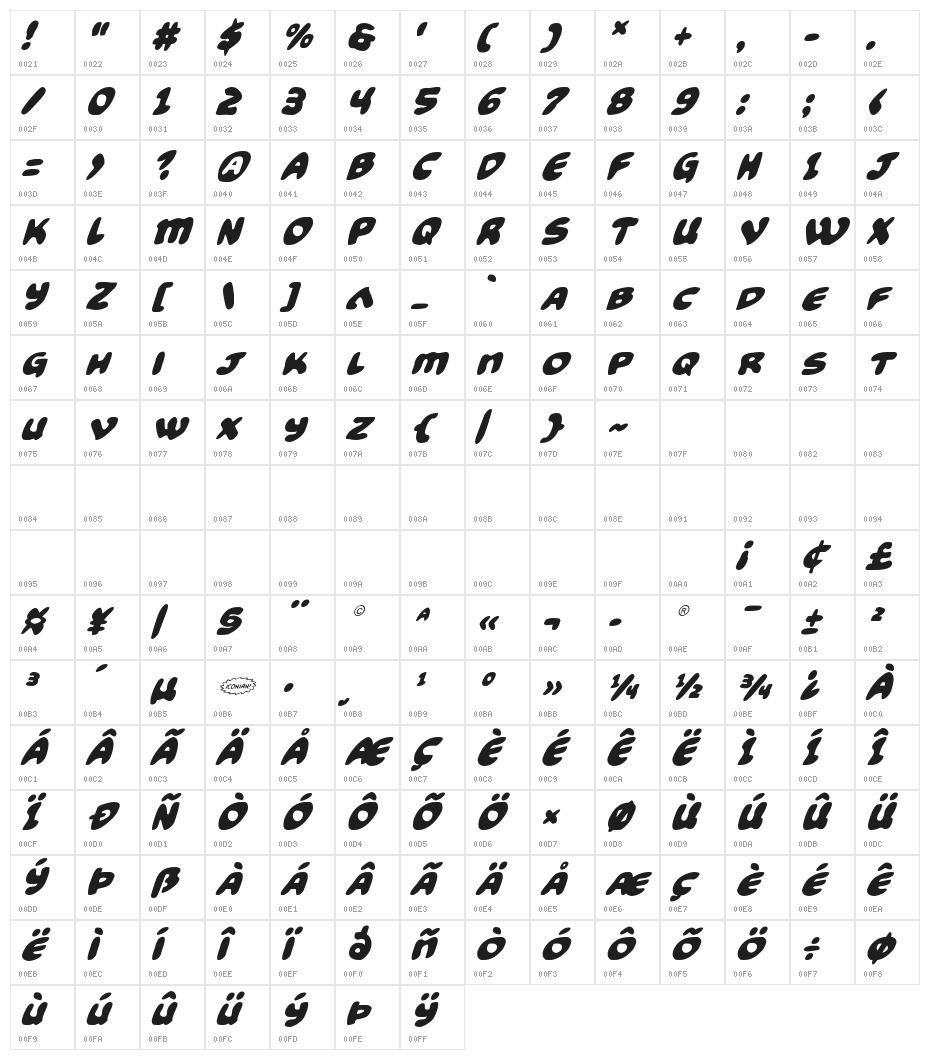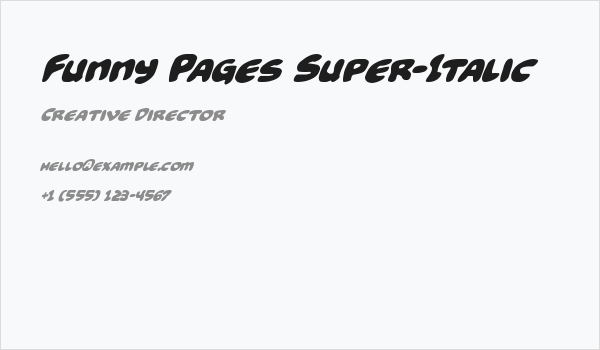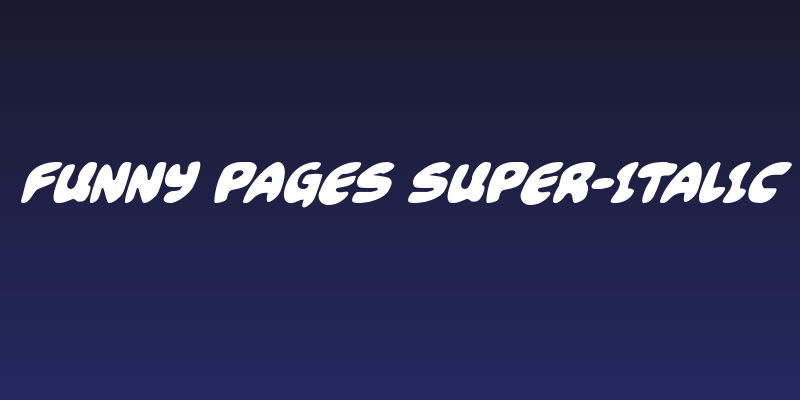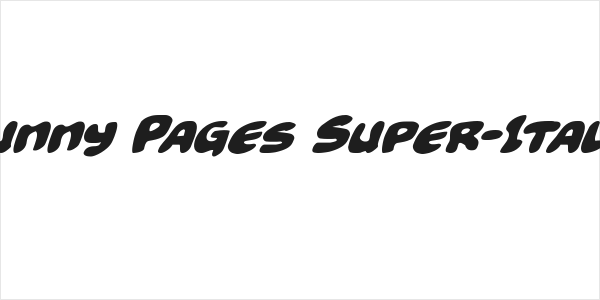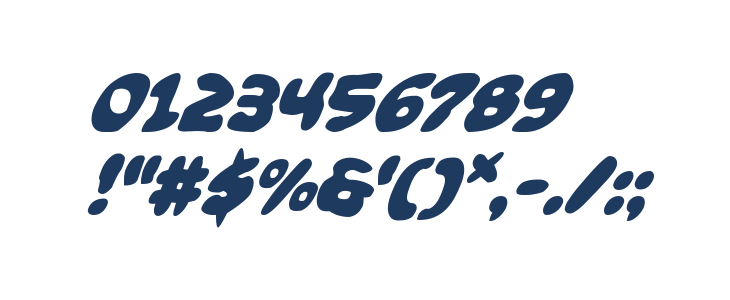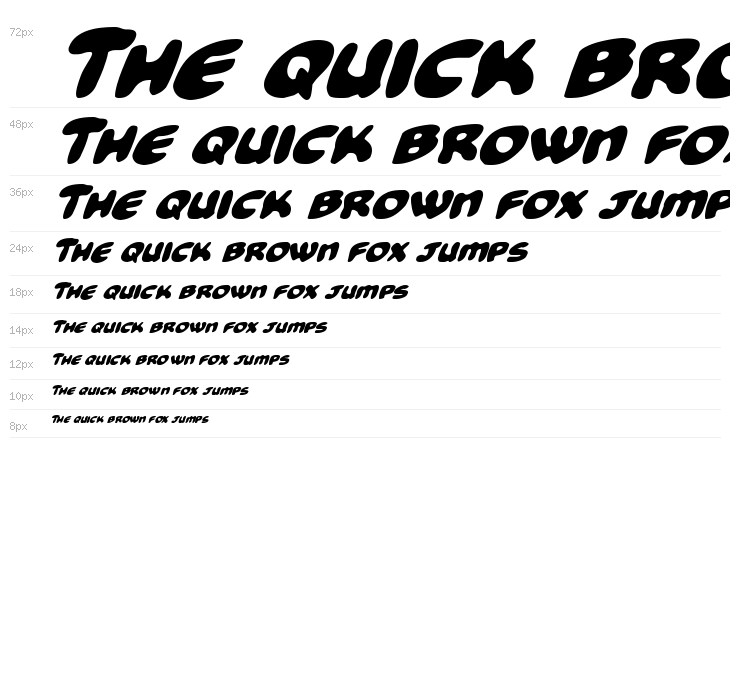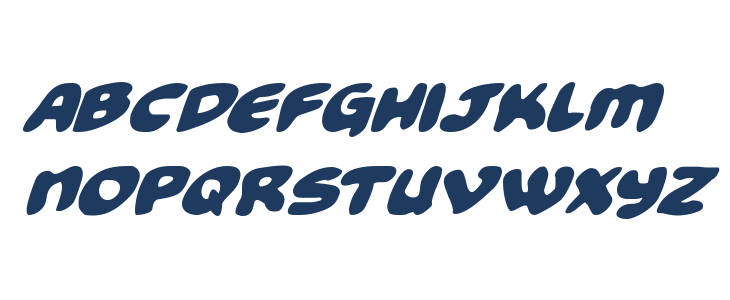
Funny Pages Super-Italic Font
Funny Pages Super-Italic Description
This playful and bold font features a highly stylized, italicized design that exudes a sense of fun and energy. The letters are thick and rounded, giving them a cartoonish appearance that is both eye-catching and approachable. The exaggerated curves and slanted orientation add a dynamic feel, making it ideal for projects that require a lively and informal touch. The numbers and special characters maintain the same whimsical style, ensuring consistency across all elements. This font's unique character makes it perfect for creative and entertaining applications.
| Overall Style | Playful, Cartoonish, Energetic |
| Proposed Projects | Ideal for comic books, children's books, playful branding, and entertainment posters. |